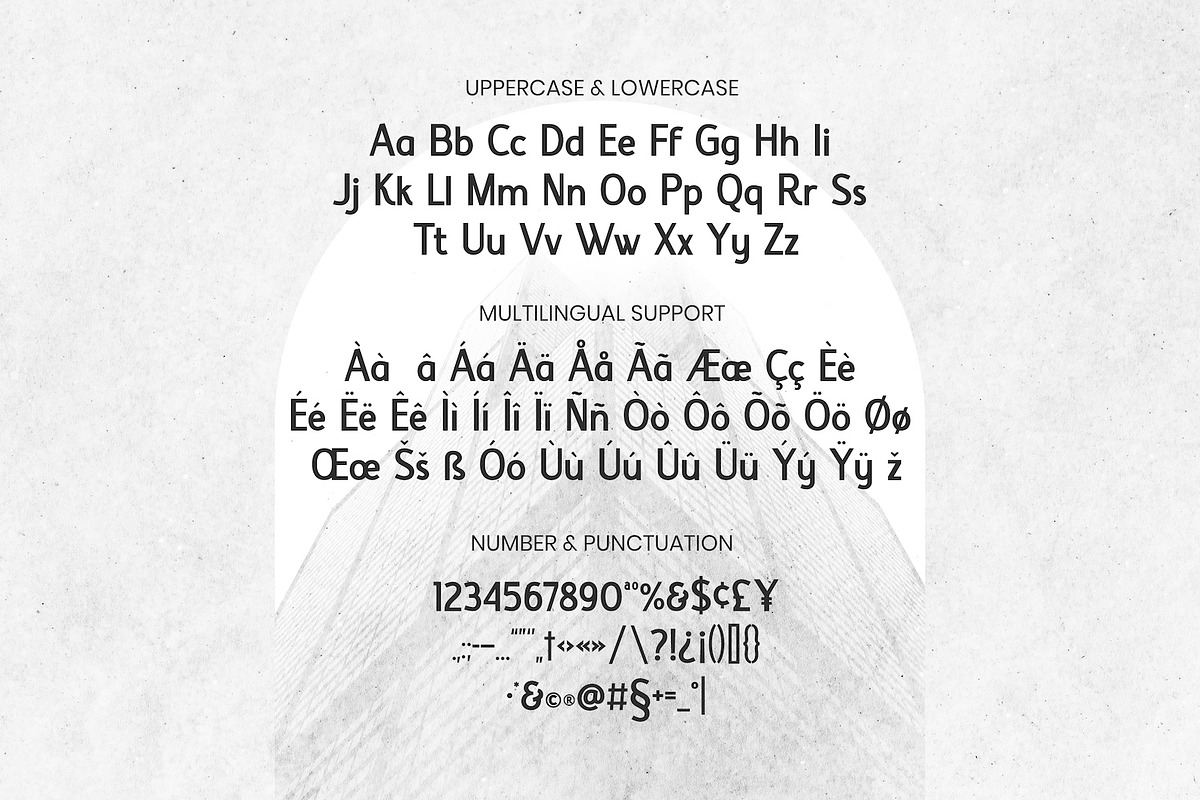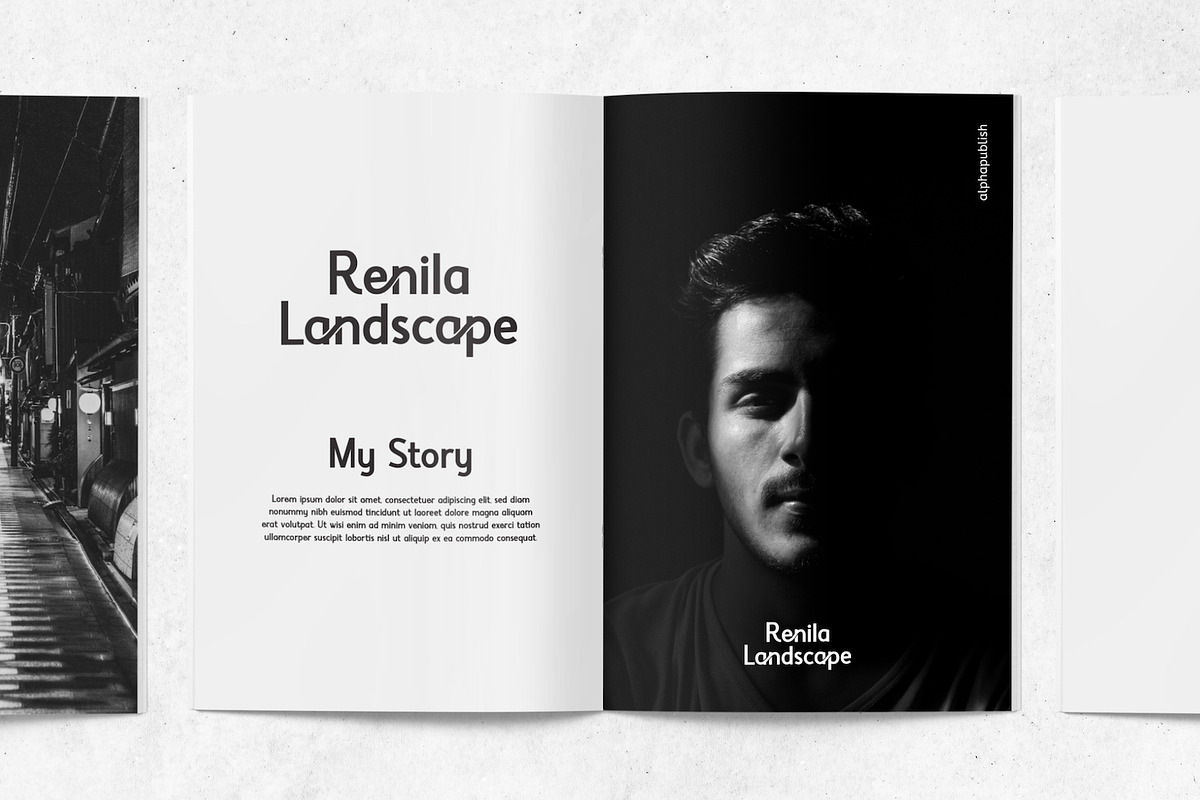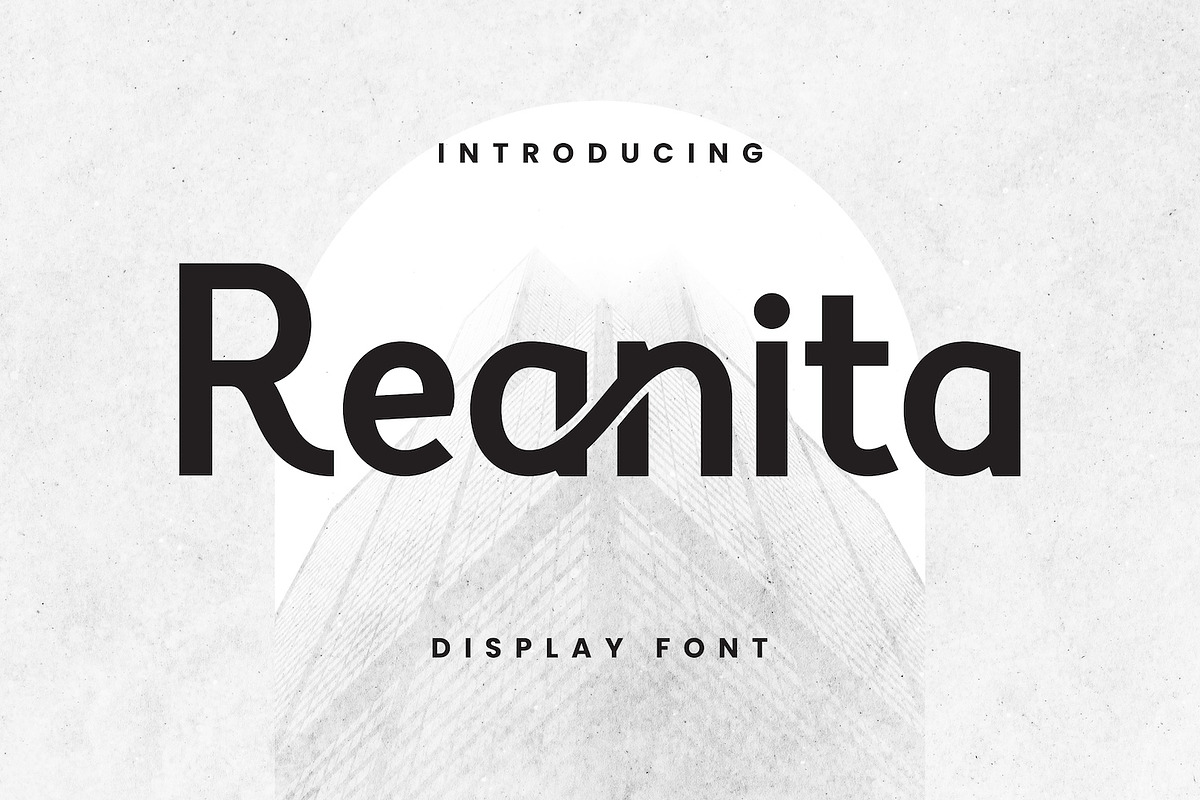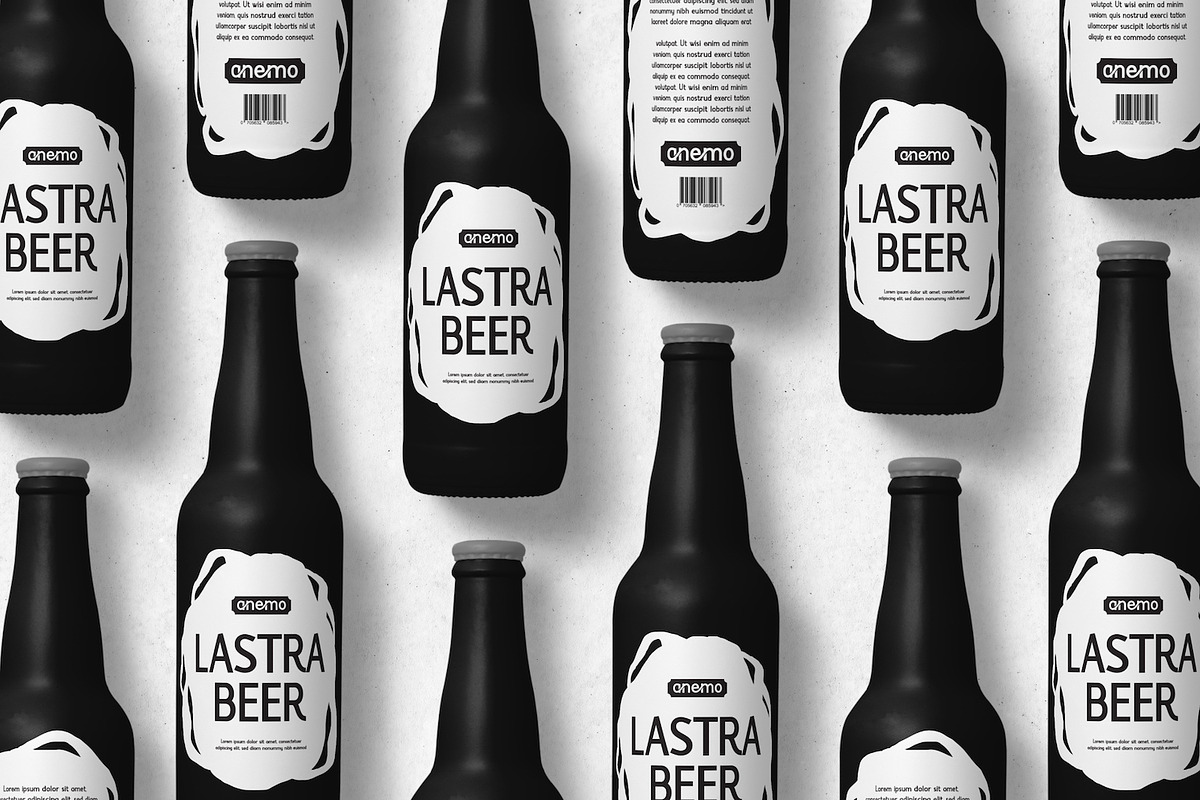
Reanita
Reanita - a minimalist font sans serif look with simple, clean and visual elegance with smooth curves and beautiful ligatures.
A very versatile font that works in both large and small sizes. This font is suitable for a wide variety of projects such as headlines, logos, labels, branding projects, magazines, homeware designs, product packaging, mugs, quotes, posters, and more.
- Punctuation, Number and Symbol
- Multilingual Support ÀÁÂÃÄÅÆÇÈÉÊËÌÍÎÏÐÑÒÓÔÕÖØÙÚÛÜÝ